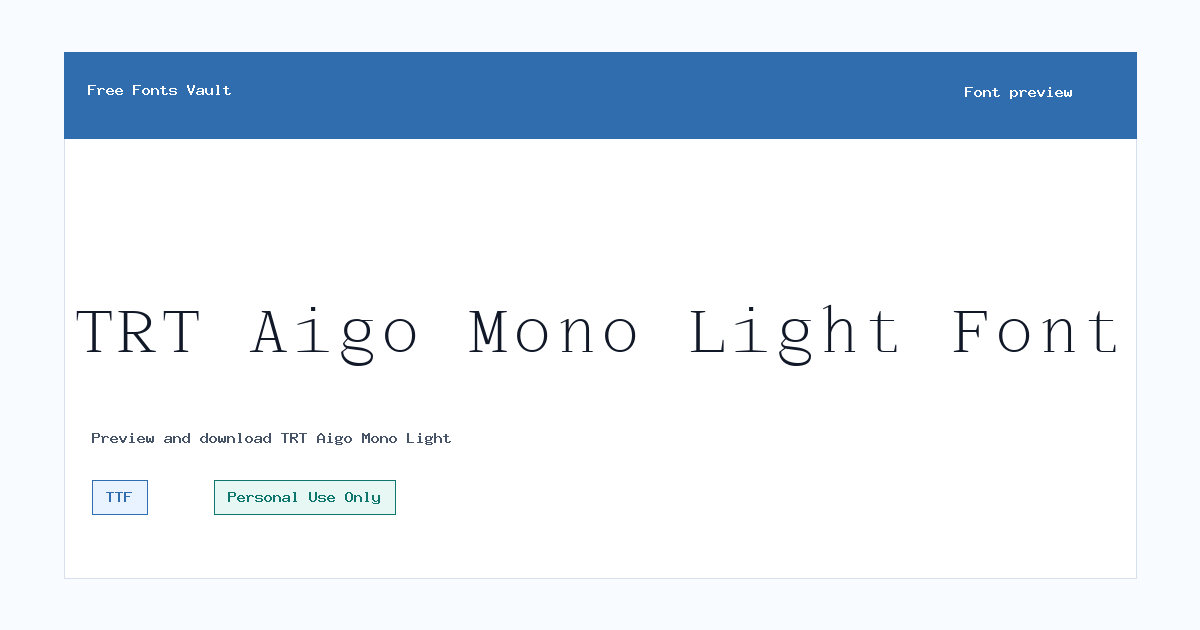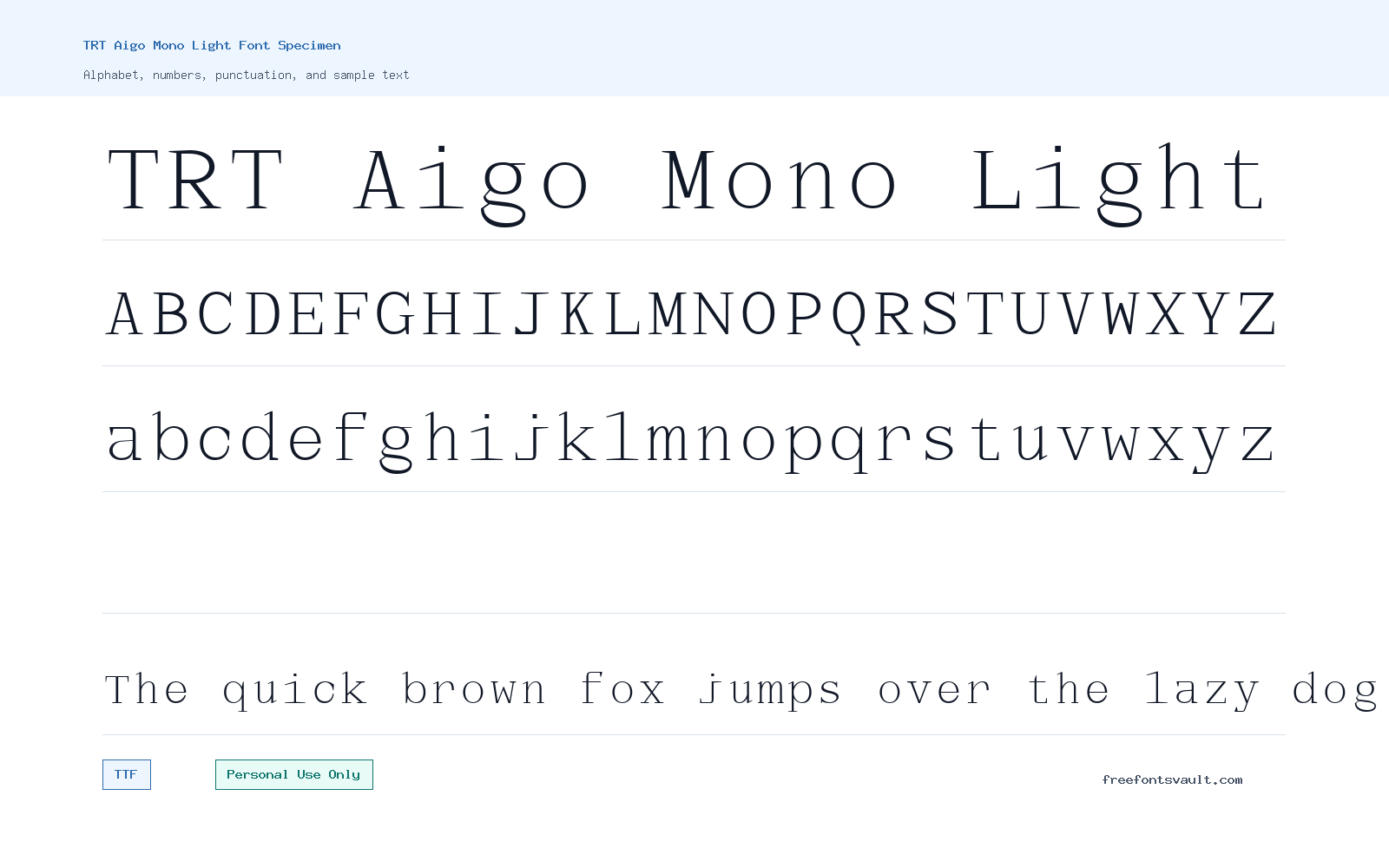
TRT Aigo Mono Light
TRT Aigo Mono Light font preview showing the family name
TRT Aigo Mono Light Font
TRT Aigo Mono Light font specimen showing alphabet, numbers, and sample text
• Designer Achmad Akbar Afiansyah of Truetype
• Foundry Truetype
TRT Aigo Mono Light font.
TRT Aigo Mono Light is a light-weight font from the TRT Aigo Mono family, offered as a TTF file for personal-use projects. Its name points to a mono-style design, so it is best approached as a clean, structured display option for testing headings, labels, layout ideas, and visual identity drafts.
About TRT Aigo Mono Light
TRT Aigo Mono Light gives designers a lighter typographic option when a project needs a neat, measured look without heavy visual weight. Because the available style is marked as Light with a 300 weight, it is most useful in places where the text has enough space to breathe. Try it in large preview sizes first: poster titles, logo drafts, editorial headers, packaging mockups, quote cards, portfolio covers, and simple social graphics. Thin or light fonts can lose impact when they are used too small, so short text is the safest starting point. If you are testing it for a brand concept, check uppercase words, numbers, punctuation, and spacing before making final design decisions.
The mono-style naming makes TRT Aigo Mono Light especially interesting for layouts that need a tidy rhythm. It may suit technology-inspired graphics, modern stationery drafts, clean product labels, menu concepts, event posters, or web mockups where a calm geometric feel is useful. For logo work, keep the wordmark short and test it in black, white, and one-color versions. For posters, give the letters room and avoid placing the Light weight over busy images unless you add contrast behind the text. For web mockups, use it as a heading or accent font rather than a long body-text choice until you have tested readability across screen sizes. A light monospaced style can look elegant in a hero section, navigation concept, caption system, or code-inspired layout, but it still needs strong contrast and careful sizing.
Pairing TRT Aigo Mono Light works best when the second typeface has a different job. A neutral sans serif can handle paragraphs while TRT Aigo Mono Light is used for titles, labels, buttons, dates, or section markers. A readable serif can also balance it in editorial layouts, especially when the mono-style text is reserved for headlines or pull quotes. Avoid pairing it with another thin display font unless the design has a very minimal layout, because two delicate fonts can make the hierarchy unclear. If the preview tool allows custom text, test the exact words you plan to use, including repeated letters and mixed-case names. Letter spacing may need small adjustments for logos and posters, especially with short all-caps words.
• Light 300 weight for clean, airy headline and display testing
• Mono-style family naming that suits structured typographic layouts
• Useful for short text, labels, poster titles, logo drafts, and web mockups
• Best tested at larger sizes where the lighter stroke can remain clear
• Logo concepts and wordmark drafts
• Poster titles and event graphics
• Clean web mockup headings
• Editorial section labels and pull quotes
• Packaging, stationery, and product label concepts
• Social media graphics with short, high-contrast text
The designer is listed as Achmad Akbar Afiansyah of Truetype, with Truetype also listed as the foundry.
What weight is this version?
This version is marked as Light with a 300 font weight.
Is TRT Aigo Mono Light good for body text?
It is better to test it first as a display or accent font. A Light weight can become hard to read in long paragraphs or small sizes, so pair it with a clearer text font for body copy.
What should I pair it with?
Pair it with a readable neutral sans serif for clean digital layouts, or with a simple serif for editorial contrast. Keep TRT Aigo Mono Light for headings, labels, or short emphasis text.